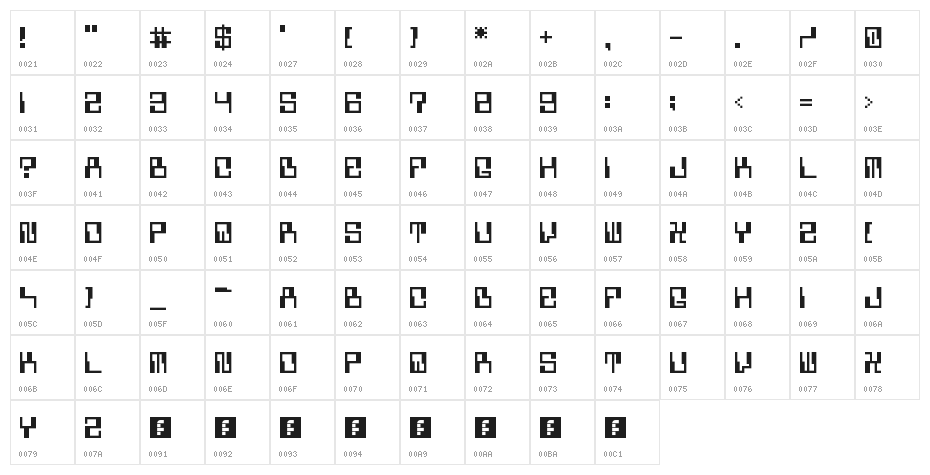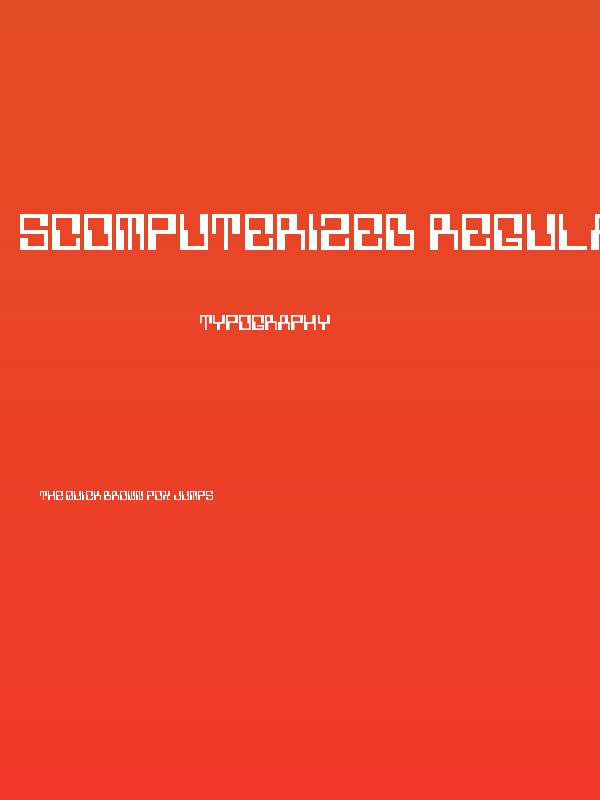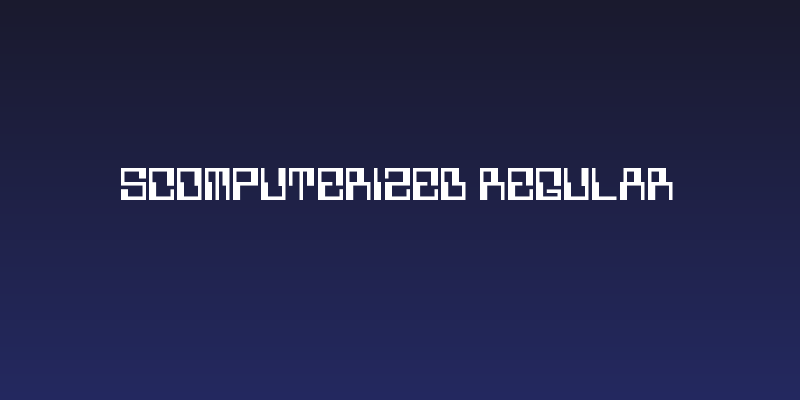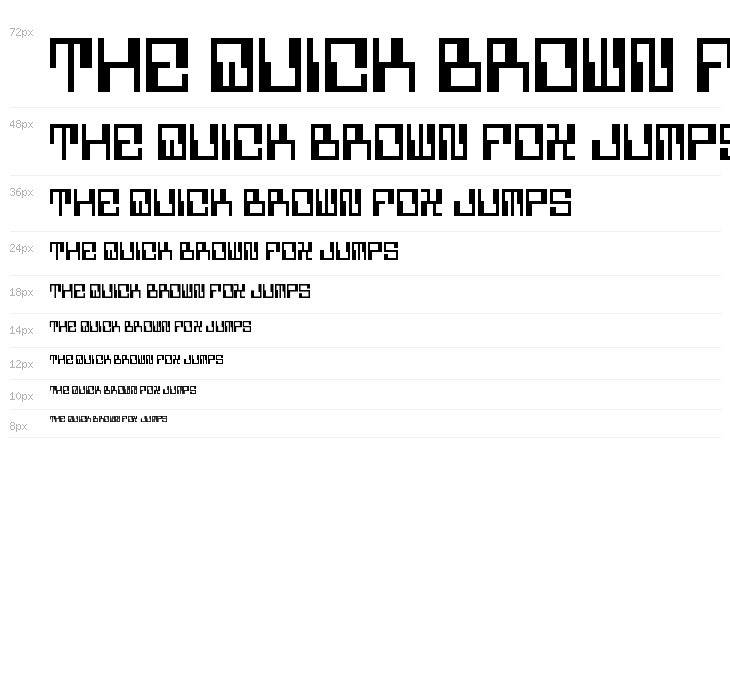
5Computerized Regular Font
5Computerized Regular Description
This font features a bold, geometric design with a distinctly digital aesthetic. The characters are constructed with sharp, angular lines and a blocky structure, reminiscent of early computer graphics or pixel art. The uppercase and lowercase letters maintain a consistent height, creating a uniform appearance. The numerals and special characters follow the same stylistic approach, ensuring cohesion across all glyphs. This font's design is both modern and retro, making it suitable for projects that require a technological or futuristic feel.
| Proposed Projects | Ideal for video game design, tech branding, digital art projects, and retro-themed posters. |